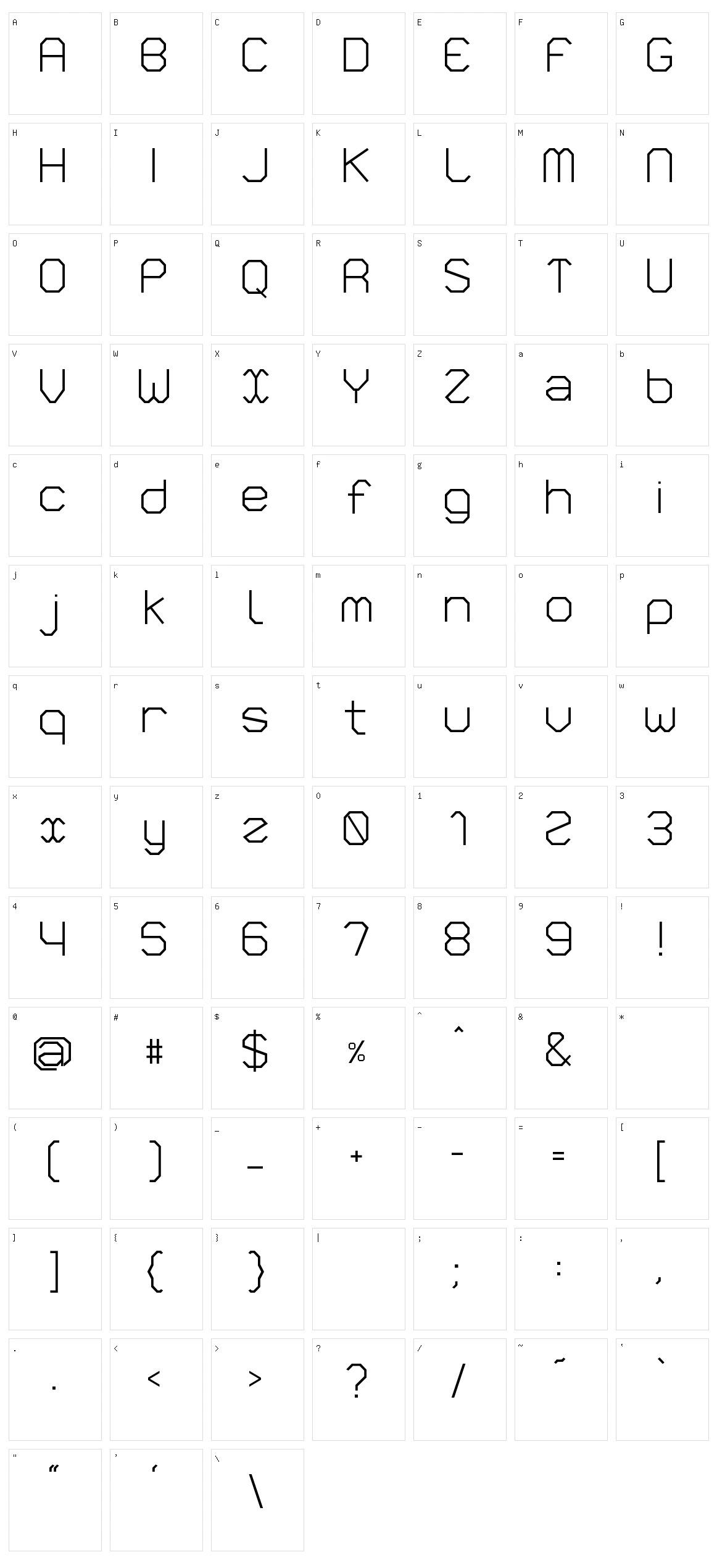
The free font VLOBJ is carefully designed by Valter Bispo, showcasing a thoughtful balance of creativity and usability and falls under the Square font style. When you download the ZIP file, it contains only 11.04 KB of font files, making it lightweight and quick to download. Please review the license details below to understand permitted usage and distribution rights. If license information is not available, we recommend using this font for personal projects only or contacting the author directly for commercial usage permissions.